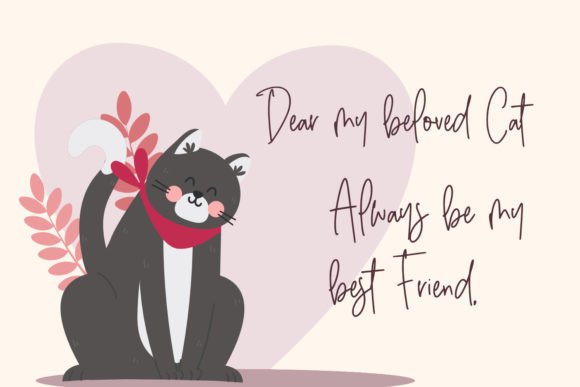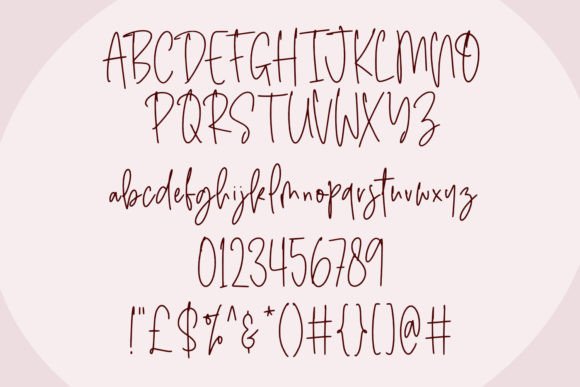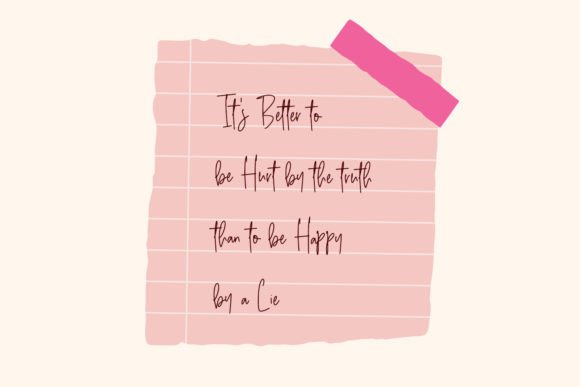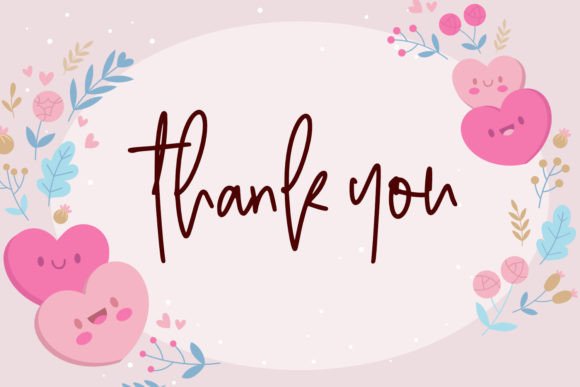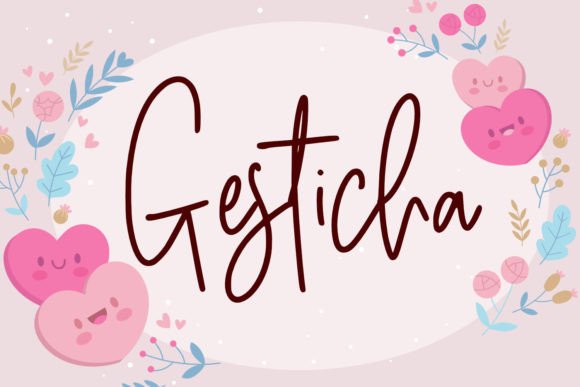
Introducing Gesticha Font: The Quirky Handwritten Font for Creative Projects
Are you tired of using the same old fonts for your creative projects? Look no further! Gesticha Font is here to shake things up with its casual and relaxed touch. This quirky handwritten font is perfect for designers, crafters, and anyone looking to add a personal touch to their work. In this article, we’ll dive into the world of Gesticha Font and explore its features, benefits, and uses.
What is Gesticha Font?
Gesticha Font is a unique and eye-catching handwritten font that exudes a sense of casualness and relaxation. Its quirky and irregular strokes make it stand out from more traditional fonts, adding a touch of personality to any project. Whether you’re working on a logo, branding materials, social media graphics, or craft projects, Gesticha Font is sure to turn your creative ideas into standout pieces.
Features of Gesticha Font
- Handwritten style: Gesticha Font has a genuine handwritten feel, making it perfect for projects that require a personal touch.
- Casual and relaxed: The font’s casual and relaxed vibe makes it ideal for creative projects that need to convey a sense of friendliness and approachability.
- Quirky and playful: Gesticha Font’s quirky and playful strokes add a touch of whimsy to any project, making it perfect for designers and crafters who want to add some personality to their work.
- Versatile: This font can be used for a wide range of projects, from logos and branding materials to social media graphics, craft projects, and more.
Benefits of Using Gesticha Font
So, why should you choose Gesticha Font for your creative projects? Here are just a few benefits of using this amazing font:
- Adds personality: Gesticha Font adds a touch of personality to any project, making it perfect for designers and crafters who want to stand out from the crowd.
- Easy to read: Despite its quirky style, Gesticha Font is easy to read, making it perfect for projects that require a clear and concise message.
- Time-saving: With Gesticha Font, you can create professional-looking projects in no time, saving you time and effort.
- Unique: Gesticha Font is a one-of-a-kind font that will set your projects apart from others, making it perfect for designers and crafters who want to make a statement.
Uses of Gesticha Font
Gesticha Font is versatile and can be used for a wide range of projects, including:
- Logos and branding materials: Use Gesticha Font to create a unique and memorable logo that reflects your brand’s personality.
- Social media graphics: Add a touch of personality to your social media graphics with Gesticha Font, making them stand out in a crowded feed.
- Craft projects: Use Gesticha Font to add a personal touch to your craft projects, such as handmade cards, scrapbooking, and more.
- Invitations and announcements: Make your invitations and announcements special with Gesticha Font, adding a touch of whimsy and personality.
Tips for Using Gesticha Font
Here are a few tips for using Gesticha Font effectively:
- Use it sparingly: Gesticha Font is best used sparingly, as too much of it can be overwhelming.
- Pair it with other fonts: Pair Gesticha Font with other fonts to create a unique and visually appealing combination.
- Experiment with colors: Experiment with different colors to find the perfect match for your project.
In conclusion, Gesticha Font is a quirky and amazing handwritten font that is perfect for designers, crafters, and anyone looking to add a personal touch to their creative projects. With its casual and relaxed touch, Gesticha Font is sure to turn any creative idea into a standout piece. So, what are you waiting for? Give Gesticha Font a try today and see the difference it can make in your projects!